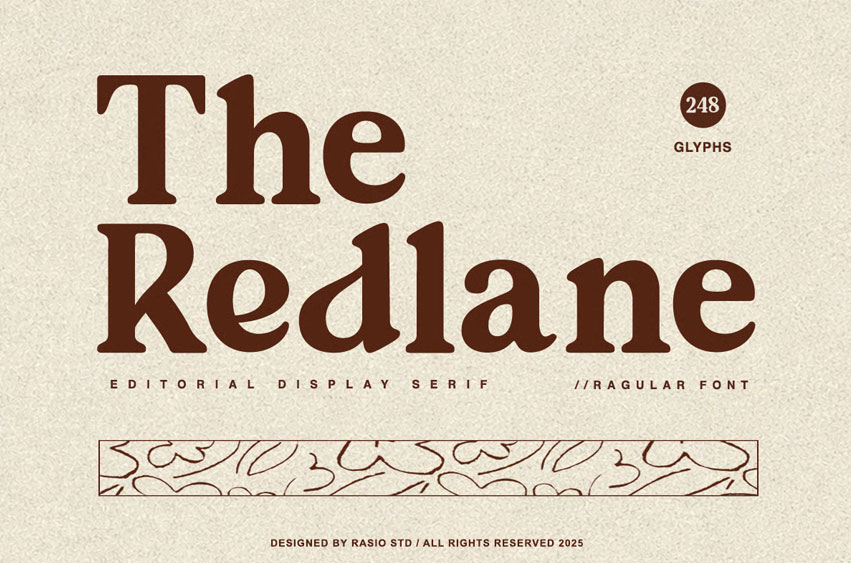
The Redlane Font
The Redlane Font is a refined editorial display serif typeface that blends timeless elegance with a bold, contemporary personality. Inspired by classic print editorial styles and vintage packaging, it brings a soft sophistication to modern design applications.
Each character is thoughtfully crafted with strong contrast, soft curves, and distinctive serifs that deliver both visual impact and warmth. Whether you’re designing for a boutique food brand, luxury cosmetics, artisanal goods, or editorial layouts, The Redlane offers the versatility and charm needed to elevate your message.
Relevance and Use Cases is perfect for food branding, artisan goods, coffee packaging, dessert menus, vintage-style promotions, editorial spreads, and boutique logos. Its balance of classic serif roots and modern warmth allows it to suit both retro and contemporary projects, especially where a soft yet bold presence is needed.